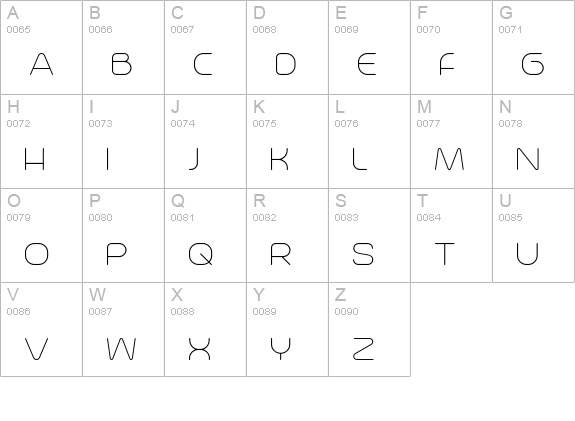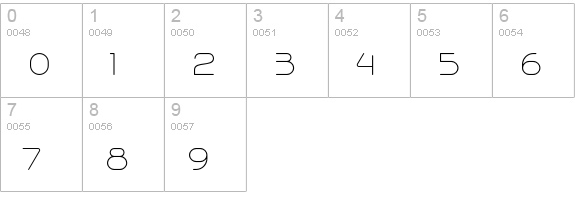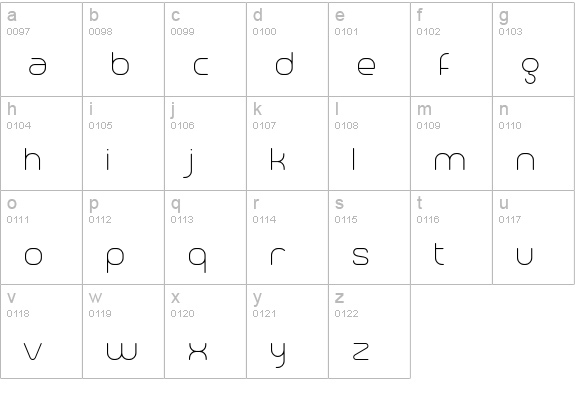
Trench Thin Font Details
Trench Thin is a delicate, low-contrast variant in the Trench typeface family \xE2\x80\x94 well suited to fashion editorial, minimal branding, and high-contrast display.
Trench Thin font is an elegant and modern typeface that exudes sophistication and style. With its clean lines and slender design, this font is perfect for adding a touch of class to any project. The sleek and minimalistic nature of Trench Thin makes it highly versatile, suitable for a wide range of applications such as logos, branding, headlines, and more. This font boasts a unique combination of thin strokes and sharp edges, creating a visual impact that is both striking and captivating. Its sleek and refined appearance makes it ideal for projects that require a sleek and contemporary look. What sets Trench Thin font apart is that it is not just a beautiful font, but it is also available for free. Yes, you read that right! Trench Thin font can be freely downloaded at FontsMarket.com, making it easily accessible to designers and creatives who are looking for a high-quality and visually appealing typeface without breaking the bank. Whether you are designing a website, creating a brochure, or crafting a social media post, Trench Thin font will elevate your design to a whole new level. Its clean and sophisticated aesthetic will instantly grab attention and leave a lasting impression on your audience. So why wait? Download Trench Thin font for free today at FontsMarket.com and experience the seamless blend of elegance and modernity that this font brings to your design projects. Take advantage of this incredible opportunity to enhance your creative endeavors with a font that is both visually stunning and freely accessible.